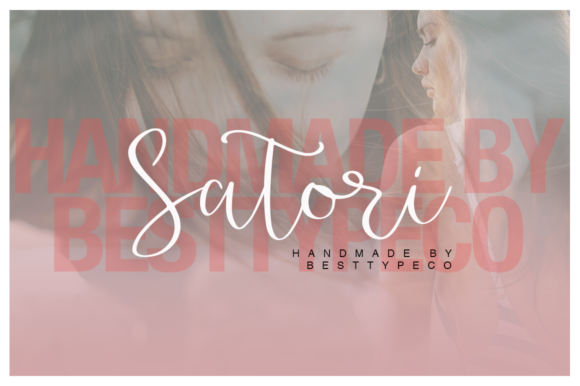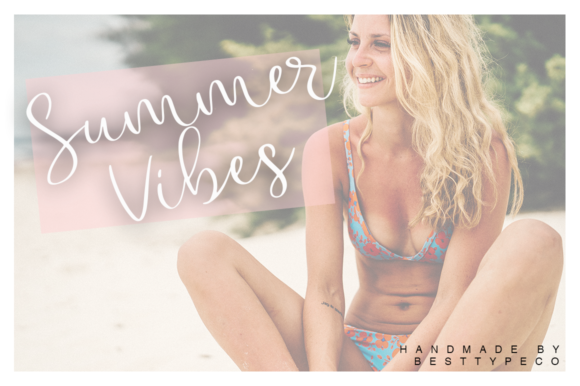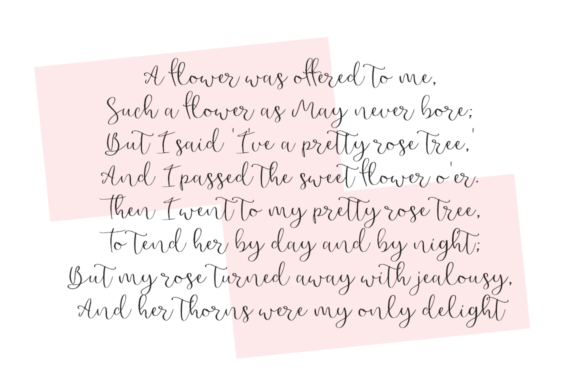
Satori
About Satori Font
Satori is a beautiful, cursive and unique handwritten font. Its distinct and well rounded letters make this font a masterpiece. Fall in love with its incredibly versatile style and use it to create spectacular designs!